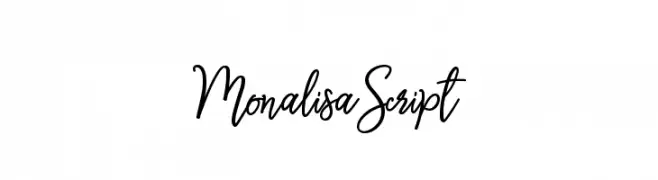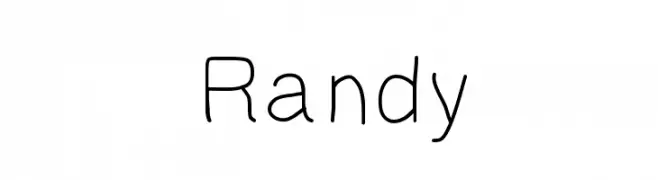
A playful, handwritten font with a childlike charm and consistent stroke width.
A charming script font with elegant, flowing curves and a handwritten feel.
A playful cursive font with elegant curves and a whimsical charm.
A charming, elegant handwritten font with fluid, slightly italicized strokes.
A charming and elegant script font with playful loops and swirls.
A festive dingbat font with charming Christmas-themed illustrations.
A bold, decorative font with playful serifs and a modern vintage charm.
A playful, handwritten font with thin, irregular strokes and a whimsical charm.
A flowing, elegant script font with a handwritten charm.
A playful, handwritten font with smooth, rounded edges and casual charm.